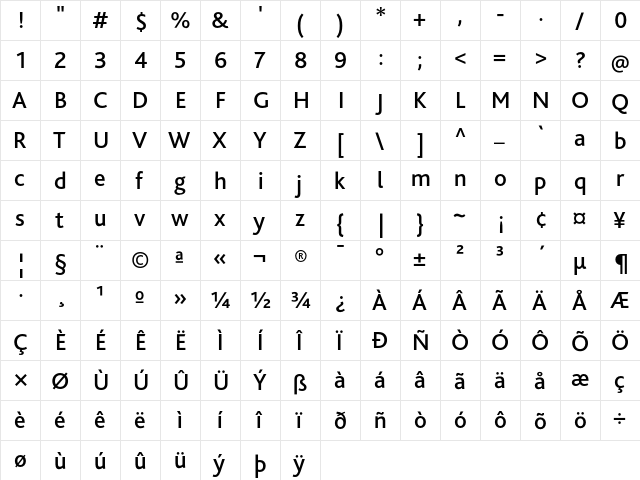
Bliss Pro Medium Font Preview
Bliss Pro Medium
Bliss Pro Medium Font Details
Design Context for Bliss Pro Typeface
Bliss Pro takes a measured approach to typography — its balanced proportions and neutral character make it a reliable workhorse for both digital and print work.